Cursive Font Generator
This is the deepest tool on the site, because "cursive font" covers an unusually wide range of real searches: cursive generator, fancy cursive font, cursive text for Instagram, cursive fonts for tattoos, and dozens of close variants all point to the same underlying need, elegant, flowing text you can copy and paste.
Type your text once above and you'll get both cursive script and bold cursive script variants immediately. The sections below cover the specific platforms and use-cases people usually generate cursive text for.
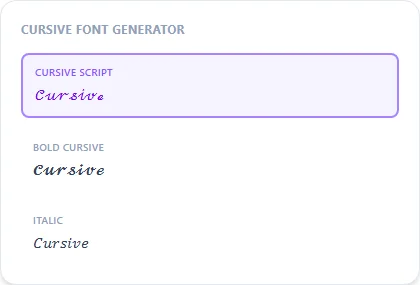
Cursive fonts for Instagram bios and captions
Cursive script is one of the most-used styles on Instagram because it reads as personal and stylized without needing a graphic. Paste it directly into your bio, story text, or caption; it displays exactly as generated, with no app or font install needed. Bold Cursive tends to hold up better at small bio-text sizes than the thinner plain script style.
Cursive fonts for TikTok
TikTok captions and bios support the same Unicode range as Instagram, so cursive text copies over cleanly. It's commonly used to make a username or pinned comment stand out from TikTok's default sans-serif UI font.
Cursive fonts for tattoos
A lot of searches for cursive fonts are really tattoo-lettering research: people mocking up how a word or name would look in script before taking it to an artist. This generator is a fast way to preview that, though for an actual tattoo you'll want to hand it to your artist as a reference rather than a final vector, since Unicode glyphs aren't designed for skin-scale line work the way dedicated tattoo lettering fonts are. See the dedicated tattoo font generator page for more on that.
Cursive vs. calligraphy vs. fancy script — what's the difference?
In casual search use these terms overlap heavily. "Cursive" usually means joined, slanted handwriting-style letters. "Calligraphy" implies more formal, often heavier lettering (see the calligraphy font generator). "Fancy script" is typically just cursive with extra flourish. This tool's Script and Bold Script styles cover all three reasonably well.
Is this a real cursive font, or a text trick?
It's real Unicode characters from the Mathematical Alphanumeric Symbols block that were designed to look like script/cursive handwriting, not an actual installed font, and not an image, which is exactly why it pastes anywhere as plain text.
Why do some letters look different from the rest in cursive style?
A handful of cursive/script letters (like capital B, E, F, H, I, L, M, R) use older pre-existing Unicode symbols instead of the newer block, for historical compatibility reasons. They're intentional, not a bug.
Can I generate cursive numbers?
The Script and Bold Script styles here focus on letters, since the Unicode cursive-number range is very limited; numbers will pass through unstyled.
Does cursive text work in Discord usernames?
Yes, though Discord enforces its own length and character rules per field. If a character doesn't render, try Bold Script instead of Script, or shorten the text.
What's the best cursive style for a wedding invitation graphic?
Bold Script most closely resembles traditional invitation lettering; pair it with the calligraphy font generator page if you want to compare it against gothic/fraktur alternatives too.
Why did my cursive text turn into boxes when I pasted it somewhere?
That means the destination app or font doesn't support that Unicode range. It's rare on modern social apps and browsers, but can happen in older software or some PDF viewers.